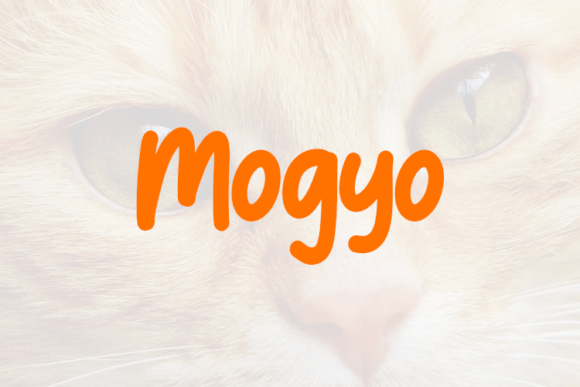
Mogyo Font: Elevate Your Designs with a Unique Visual Dimension
In the world of design, fonts play a crucial role in conveying the message and aesthetic appeal of a brand or product. With numerous fonts available, finding the perfect one that stands out and complements your design can be a daunting task. However, if you’re looking for a font that can bring a new visual dimension to your clothing and product designs, look no further than Mogyo Font. In this article, we’ll explore the features and benefits of Mogyo Font and how it can elevate your designs to the next level.
Introducing Mogyo Font
Mogyo Font is a unique and versatile font designed to cater to the diverse needs of designers. Whether you’re working on clothing, product, or any other design project, Mogyo Font is the perfect choice. Its quintessential versatility allows it to seamlessly adapt to any design context, making it an excellent addition to your font library.
Key Features of Mogyo Font
- Unique Visual Dimension: Mogyo Font is meticulously crafted to bring a new visual dimension to your designs. Its distinct style and aesthetic appeal make it stand out from other fonts.
- Quintessentially Versatile: Mogyo Font is designed to be versatile and adaptable to any design context. Whether you’re working on a clothing design, product packaging, or any other project, Mogyo Font fits perfectly.
Benefits of Using Mogyo Font
Mogyo Font offers several benefits that make it an excellent choice for designers. Some of the key benefits include:
- Universally Suited: Mogyo Font is universally suited for all aesthetic ventures. Whether you’re working on a clothing design, product packaging, or any other project, Mogyo Font is the perfect choice.
- Elevate Style Quotient: Mogyo Font can elevate the style quotient of your designs manifold. Its unique visual dimension and versatility make it an excellent addition to your font library.
Design Applications of Mogyo Font
Mogyo Font is suitable for various design applications, including:
- Clothing Design: Mogyo Font is perfect for clothing design, including t-shirts, hoodies, and other apparel.
- Product Packaging: Mogyo Font is suitable for product packaging, including labels, tags, and other packaging materials.
- Graphic Design: Mogyo Font is also suitable for graphic design projects, including brochures, flyers, and other marketing materials.